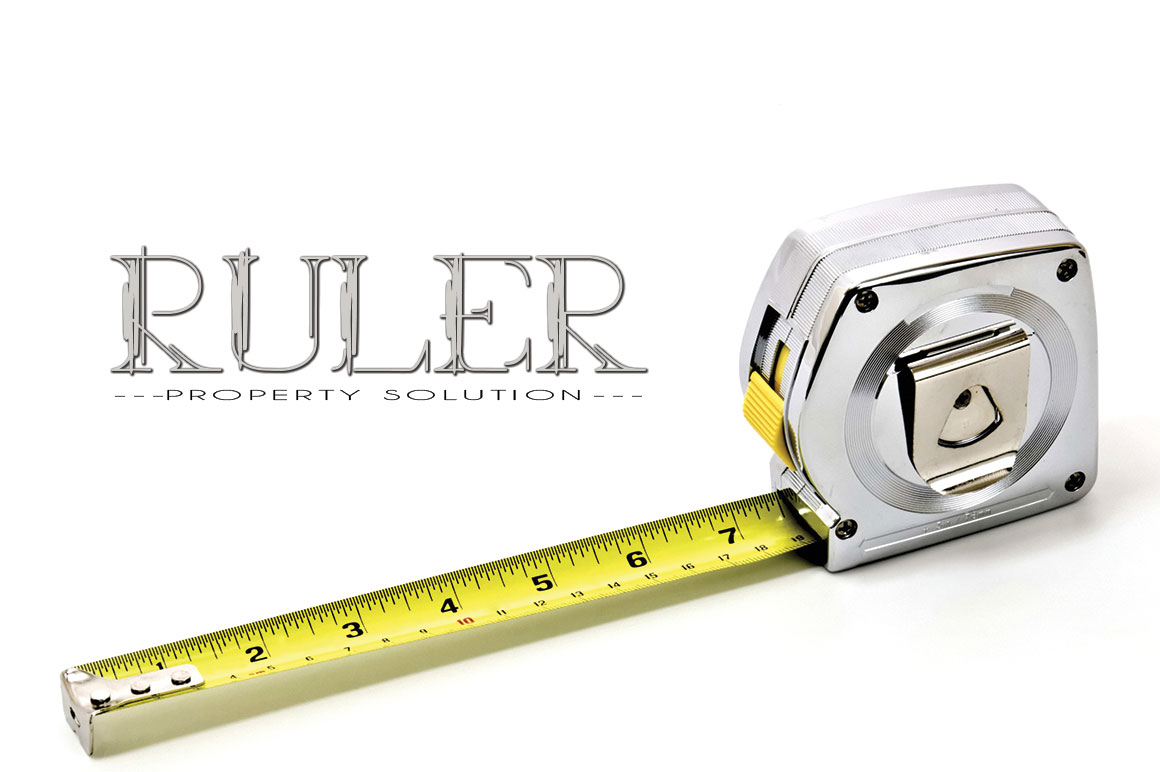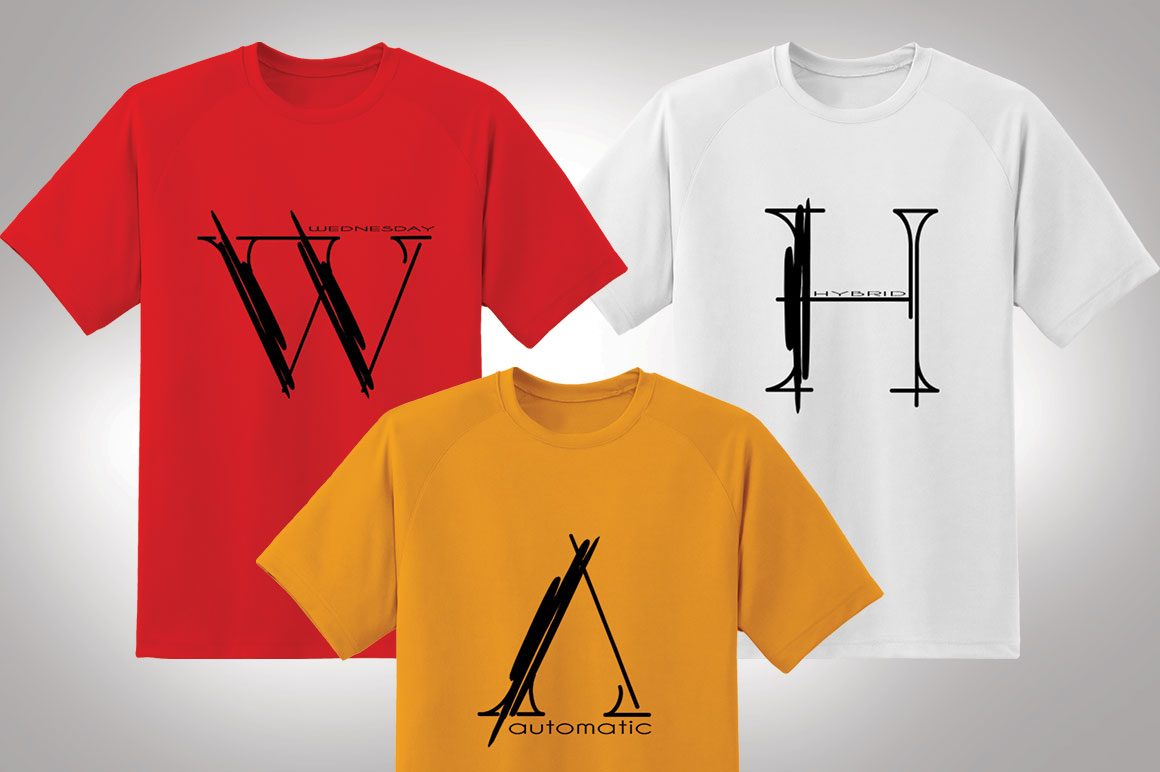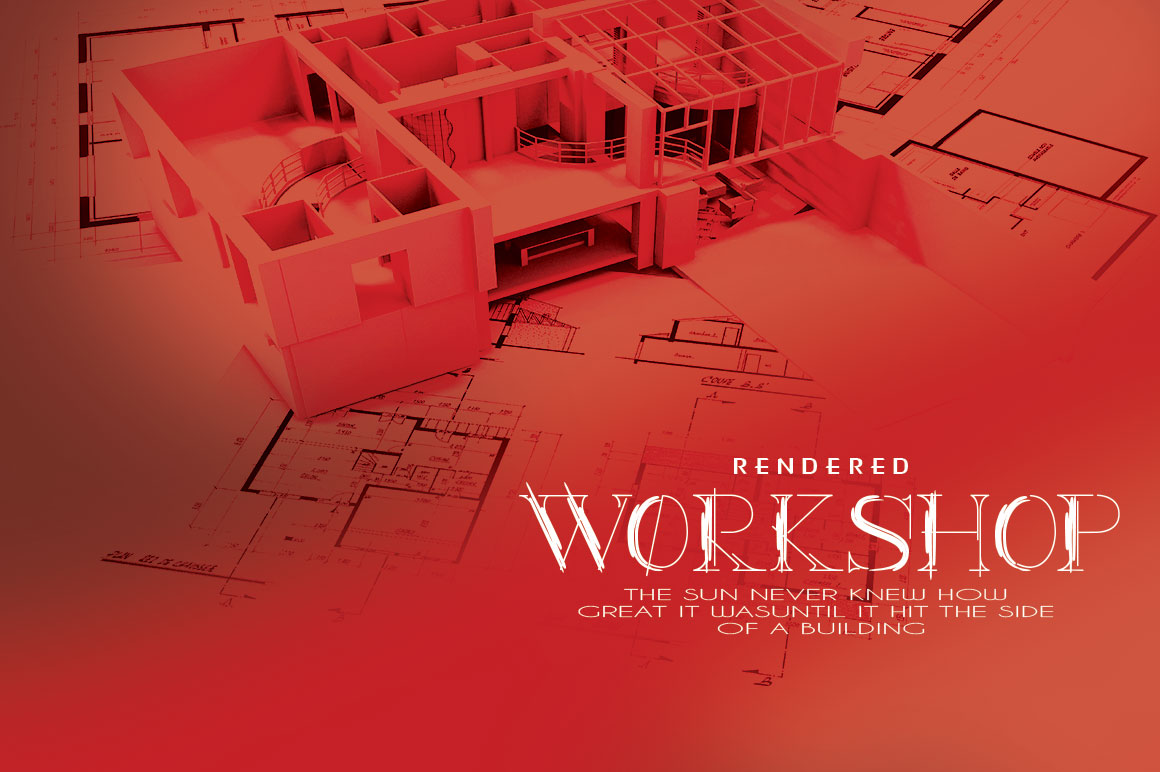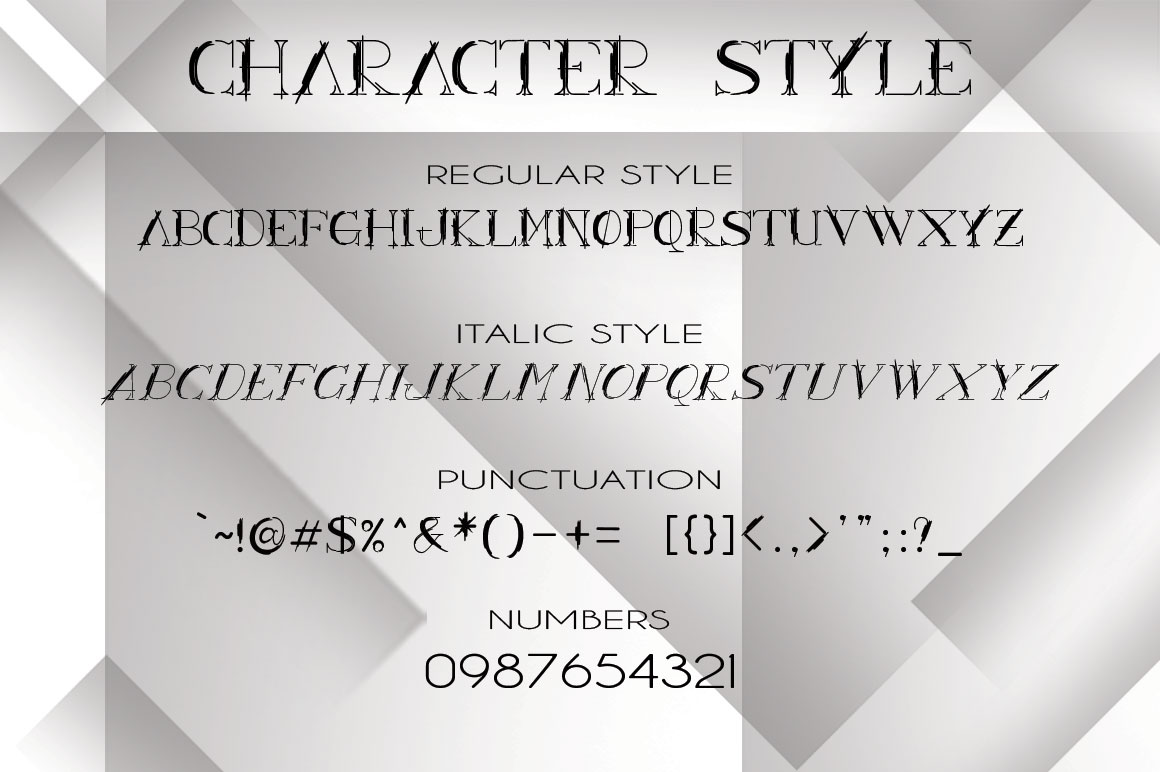
The Designer’s Delight: Exploring the Archiline Font
I’ll never forget the frustration of working on a branding project for a trendy boutique hotel. My client wanted a font that screamed ‘style’ and ‘sophistication,’ but everything I tried seemed to fall flat. That was until I stumbled upon the Archiline font. It was love at first sight! The hand-scratched texture, the elegant lines, and the versatility – it was exactly what I needed. In this article, I’ll share my experience with Archiline, its features, and how to make the most of it in your designs.
An Honest Review of Archiline
- ✨ Unique hand-scratched texture that adds a touch of personality to any design
- ✅ Comes in both regular and italic styles, perfect for creating visual interest
- 💡 Highly legible, even at smaller font sizes
- 🎨 Great for display purposes, but also suitable for body text
While Archiline is an amazing font, there are a few things to keep in mind:
- ⚠️ The hand-scratched texture can be a bit distracting if overused or paired with certain design elements
- 🤔 Some characters, like the uppercase ‘Q’ and ‘O’, are quite similar and may cause confusion
The Backstory of Archiline
Archiline was created by a talented type designer who wanted to create a font that captured the essence of hand-scratched lettering. The designer’s inspiration came from vintage signs, street art, and the imperfections of hand-drawn letters. The result is a unique font that adds a touch of personality to any design.
| What is the best use for Archiline? | Archiline is perfect for display purposes, such as headings, titles, and branding. However, it’s also suitable for body text and can be used for a variety of design projects. |